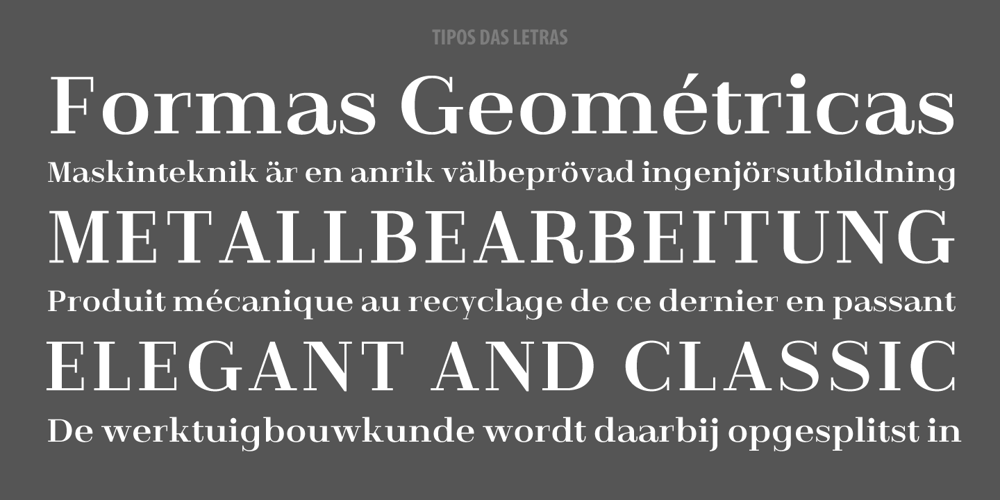
TDL Ruha Hairline
TDL Ruha Hairline font
TDL Ruha Hairline Font Family was designed by Ricardo Santos, Rúben Dias, Aprígio Morgado and published by Tipos Das Letras. TDL Ruha Hairline contains 2 styles and family package options. Ruha Harline is a modern and mechanical serif typeface and is the result of stencil’s RUHA development. Being the first typeface of the family, it sets the basic concepts for further development, on each version to come. The design approach, results from a rigid geometrical connection with the Roman du Roi, since the letterforms are imposed by the constraints of the RUHA ruler. The main typographic proportions are connected with the modern typefaces, like Didot or Bodoni. Maintaining the same structure with different typographical and stylistic properties, the stencil allows to explore a modern typeface, with vertical stress, high contrast between the thick and thin strokes and hairline serifs.